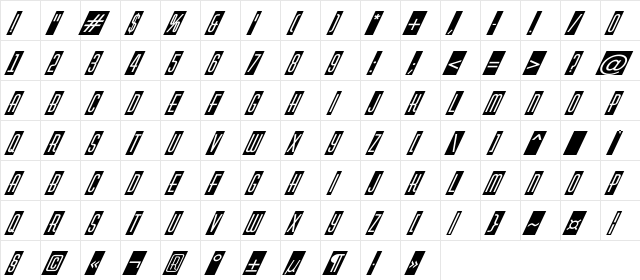
a_HuxleyCmVObl Italic Font Preview
a_HuxleyCmVObl Italic
a_HuxleyCmVObl Italic Font Details
Design Context for a_HuxleyCmVObl Typeface
a_HuxleyCmVObl offers clean, dependable letterforms without strong stylistic allegiance, making it a practical choice for designers who need flexibility. The slanted form adds forward momentum and visual energy.
Pro Tip: Try a_HuxleyCmVObl for annotation and caption copy alongside an upright companion — the contrast in angle creates a dynamic but ordered typographic system.